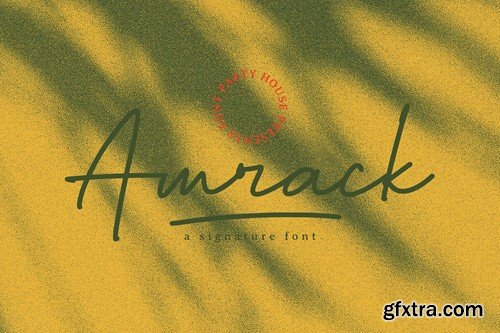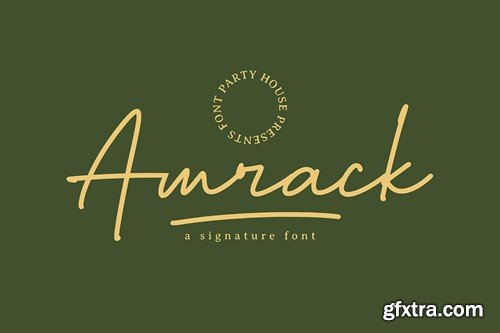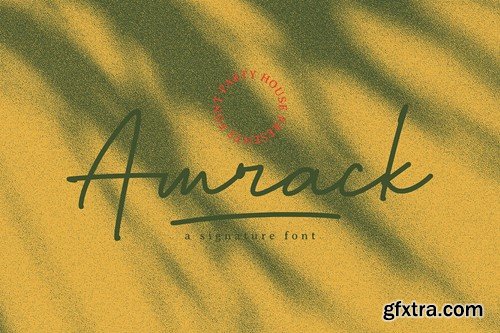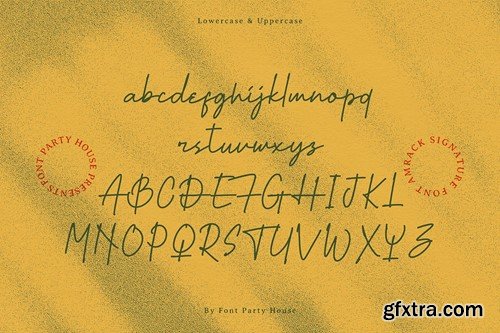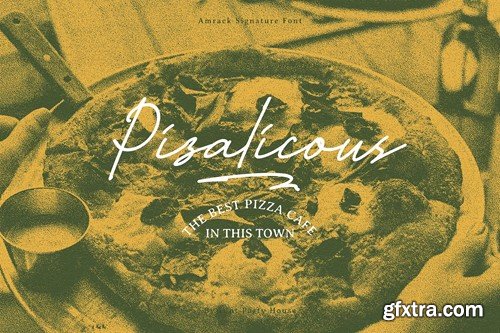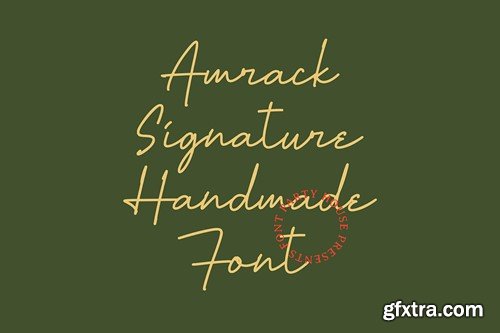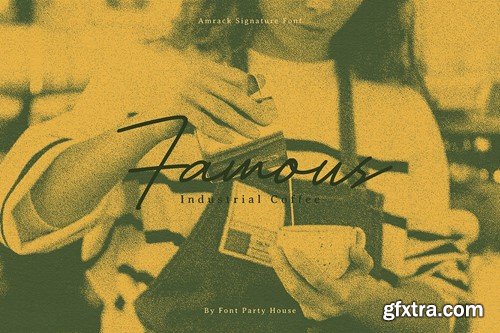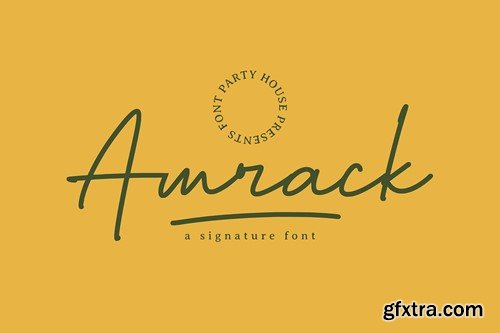
Amrack Signature Font
Amrack is a Signature Font is a font that has unique characteristics. This font is very powerful and suitable for use in creating logos, branding, headlines, labels, packaging, magazines, and much more. Features: HOW TO ACCESS ALTERNATE CHARACTERS Open Glyphs Panel: *Not included: Product mockup, design template and textured background. Hopefully this font can help your work, enjoy! Please contact us if you have any question! Thank You!